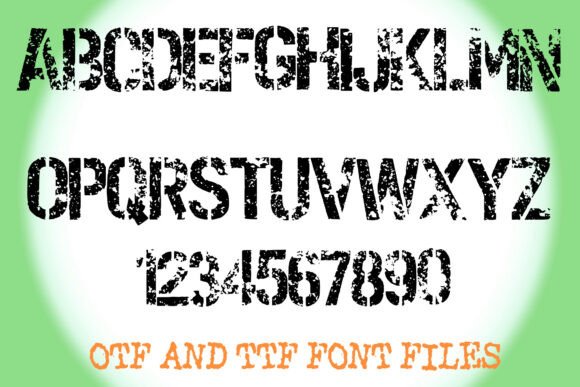
Channel Rugged Military Vibes with the Army Stencil Distressed Font
The Army Stencil Distressed Font is a bold, weathered typeface that mimics the look of authentic stenciled lettering worn by time and terrain. This font is perfect for tactical themes, vintage posters, military designs, or industrial branding. In this article, we’ll explore the unique features of the Army Stencil Distressed Font and how it can add a touch of rugged military charm to your designs.
The Inspiration Behind the Army Stencil Distressed Font
The Army Stencil Distressed Font is inspired by the stenciled lettering often used in military contexts. This type of lettering is characterized by its bold, blocky shapes and precise lines, which are typically achieved through a stenciling process. Over time, the stenciled lettering can become worn and distressed, giving it a unique, battle-hardened look.
The Army Stencil Distressed Font captures this worn, weathered look, giving designers a way to add a touch of authenticity to their military-inspired designs. Whether you’re creating a tactical logo, a vintage-style poster, or an industrial brand identity, this font is sure to add a rugged, military edge to your work.
Key Features of the Army Stencil Distressed Font
The Army Stencil Distressed Font has several key features that make it perfect for military-inspired designs. Some of its key features include:
- Distressed texture: The font has a worn, weathered texture that gives it a unique, battle-hardened look.
- Stencil-style lettering: The font mimics the look of stenciled lettering, with bold, blocky shapes and precise lines.
- Bold and clear: Despite its distressed texture, the font remains bold and clear, making it perfect for use in a variety of design contexts.
- Versatile: The font is versatile and can be used in a range of design contexts, from tactical logos to vintage posters.
Using the Army Stencil Distressed Font in Your Designs
The Army Stencil Distressed Font is a versatile typeface that can be used in a range of design contexts. Here are some ideas for using this font in your designs:
- Tactical logos: The font is perfect for creating tactical logos that require a bold, rugged look.
- Vintage posters: The font’s distressed texture and stencil-style lettering make it perfect for creating vintage-style posters.
- Military designs: The font is ideal for military designs, such as recruitment posters, military logos, and more.
- Industrial branding: The font’s rugged, industrial look makes it perfect for industrial branding, such as logos, packaging, and more.
Tips for Getting the Most Out of the Army Stencil Distressed Font
Here are some tips for getting the most out of the Army Stencil Distressed Font:
- Use it sparingly: The font’s distressed texture and stencil-style lettering can be overwhelming if overused. Use it sparingly to add a touch of rugged military charm to your designs.
- Experiment with colors: The font looks great in a range of colors, from bold and bright to muted and earthy. Experiment with different colors to find the perfect look for your design.
- Pair it with other fonts: The font pairs well with other fonts, such as sans-serif fonts and script fonts. Experiment with different font pairings to find the perfect combination for your design.
The Army Stencil Distressed Font is a bold, weathered typeface that mimics the look of authentic stenciled lettering worn by time and terrain. With its distressed texture, stencil-style lettering, and bold and clear design, this font is perfect for tactical themes, vintage posters, military designs, or industrial branding. By following the tips outlined in this article, you can get the most out of the Army Stencil Distressed Font and add a touch of rugged military charm to your designs.
- What is the Army Stencil Distressed Font?: The Army Stencil Distressed Font is a bold, weathered typeface that mimics the look of authentic stenciled lettering worn by time and terrain.
- What is the font perfect for?: The font is perfect for tactical themes, vintage posters, military designs, or industrial branding.